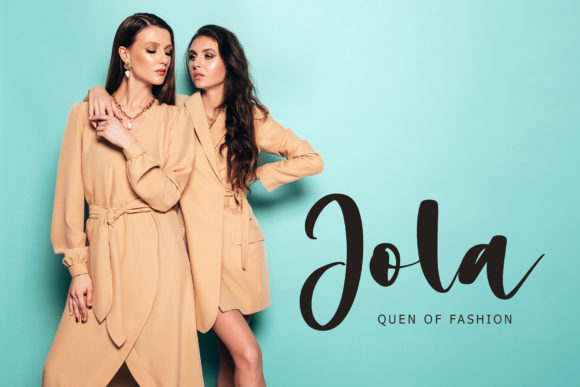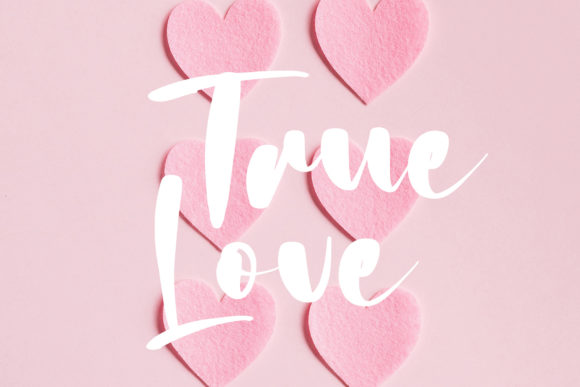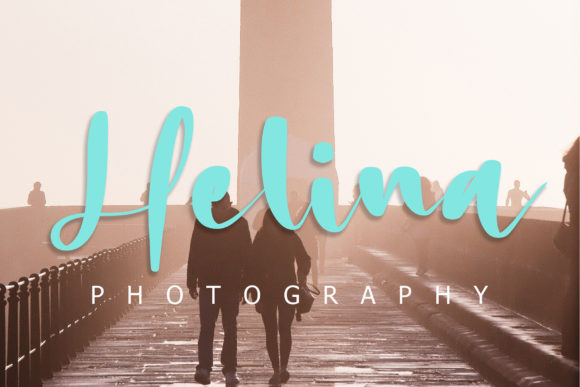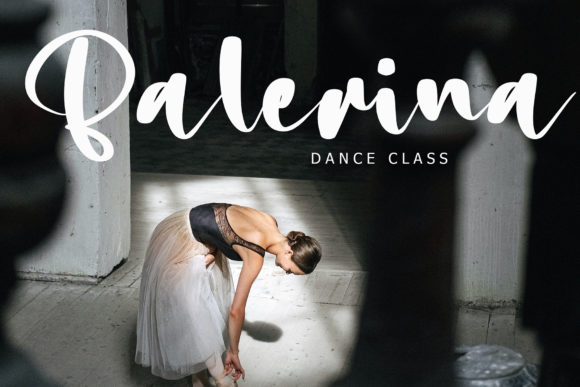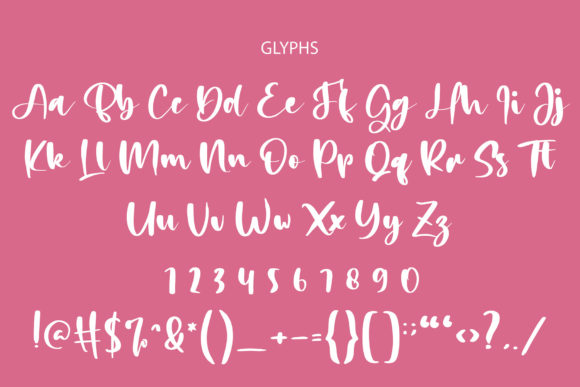
About Blosty Font
Blosty is a delicate and elegant handwritten font. Its distinct and well rounded letters make this font a masterpiece. Fall in love with its incredibly versatile style and use it to create spectacular designs!